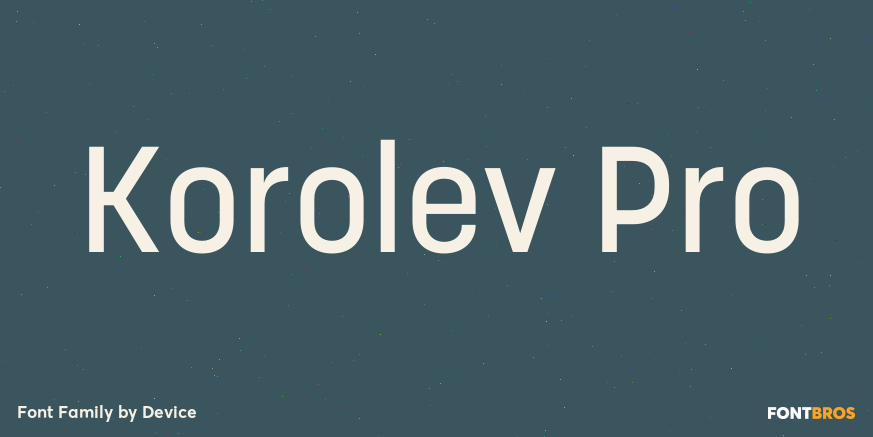
DF Korolev is a 20 weight sans serif family based on lettering by an anonymous Soviet graphic designer from the propaganda displays at the Communist Red Square parade in 1937. It has been named in honor of Sergey Pavlovich Korolyov, or Korolev, considered…